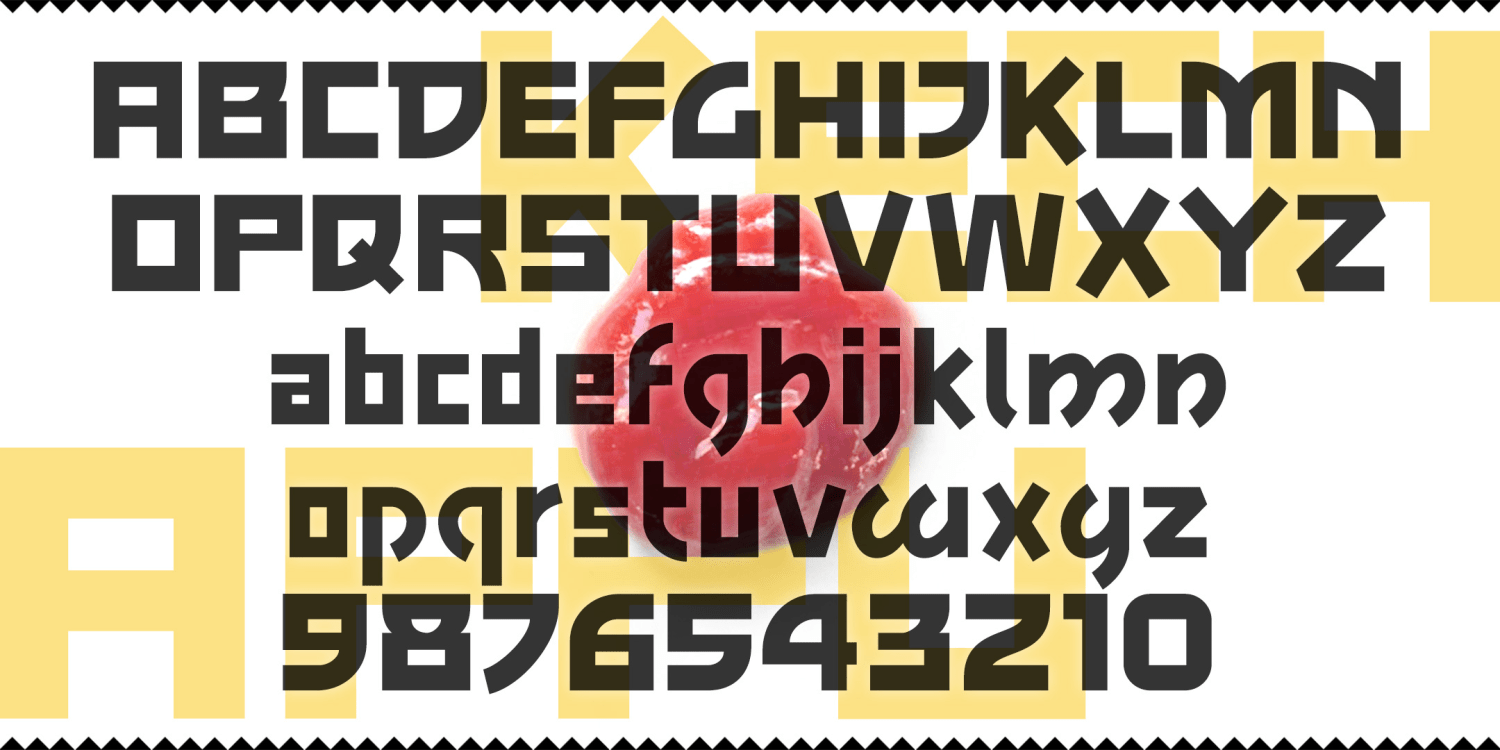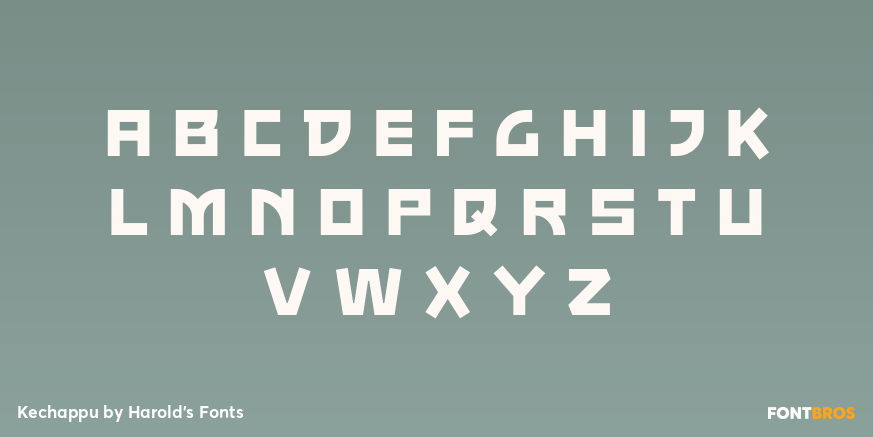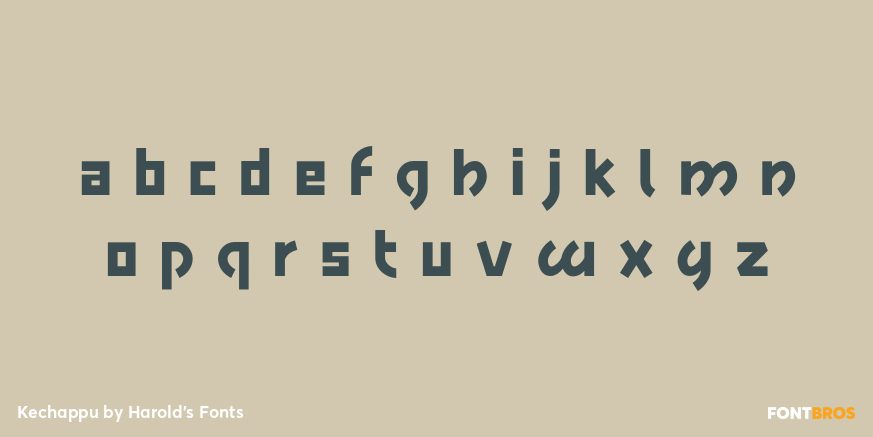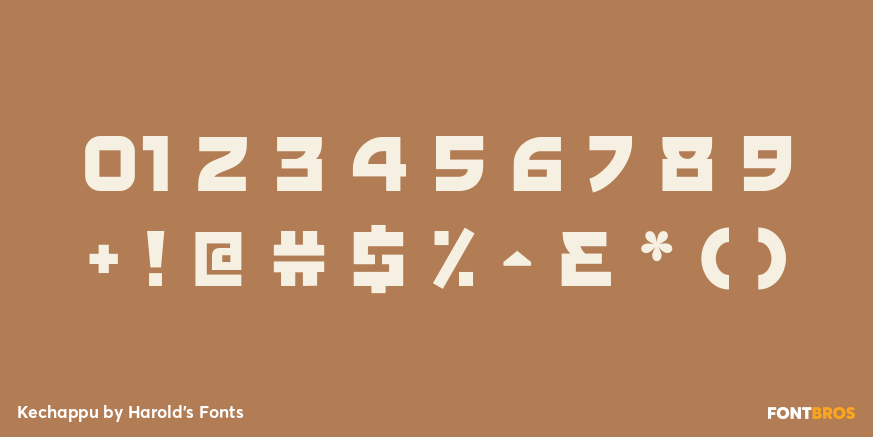
Kechappu
Font Family by Harold's Fonts
Kechappu is a bold font with squarish letters, monoweight strokes, and some unusual features that relate to modern Asian typographic styles. The fusion of East and West produces tasty results. For example, ketchup, that all-American food, began as a Malay (or maybe Chinese) sauce and word; kechappu is the Japanese translation.